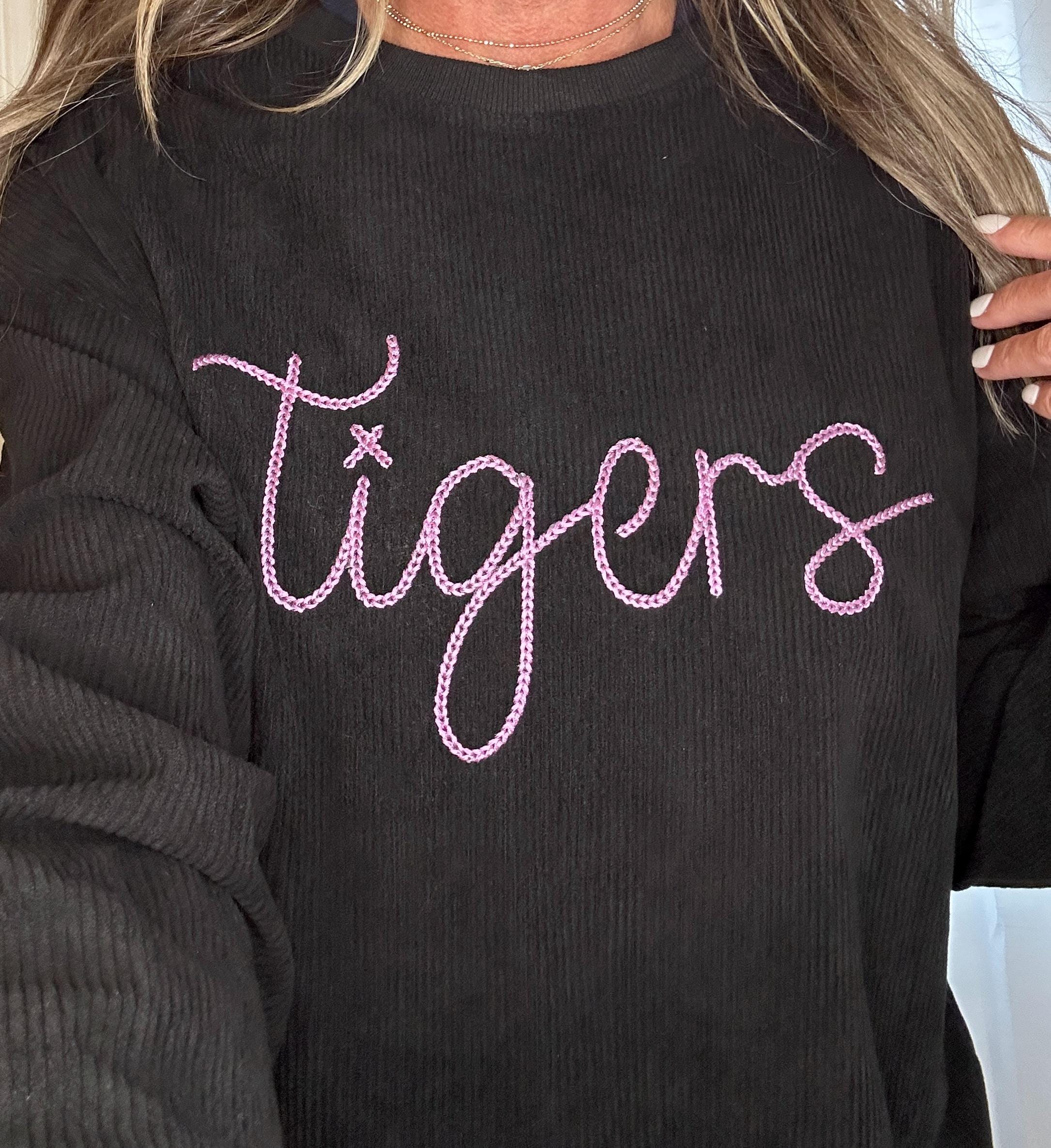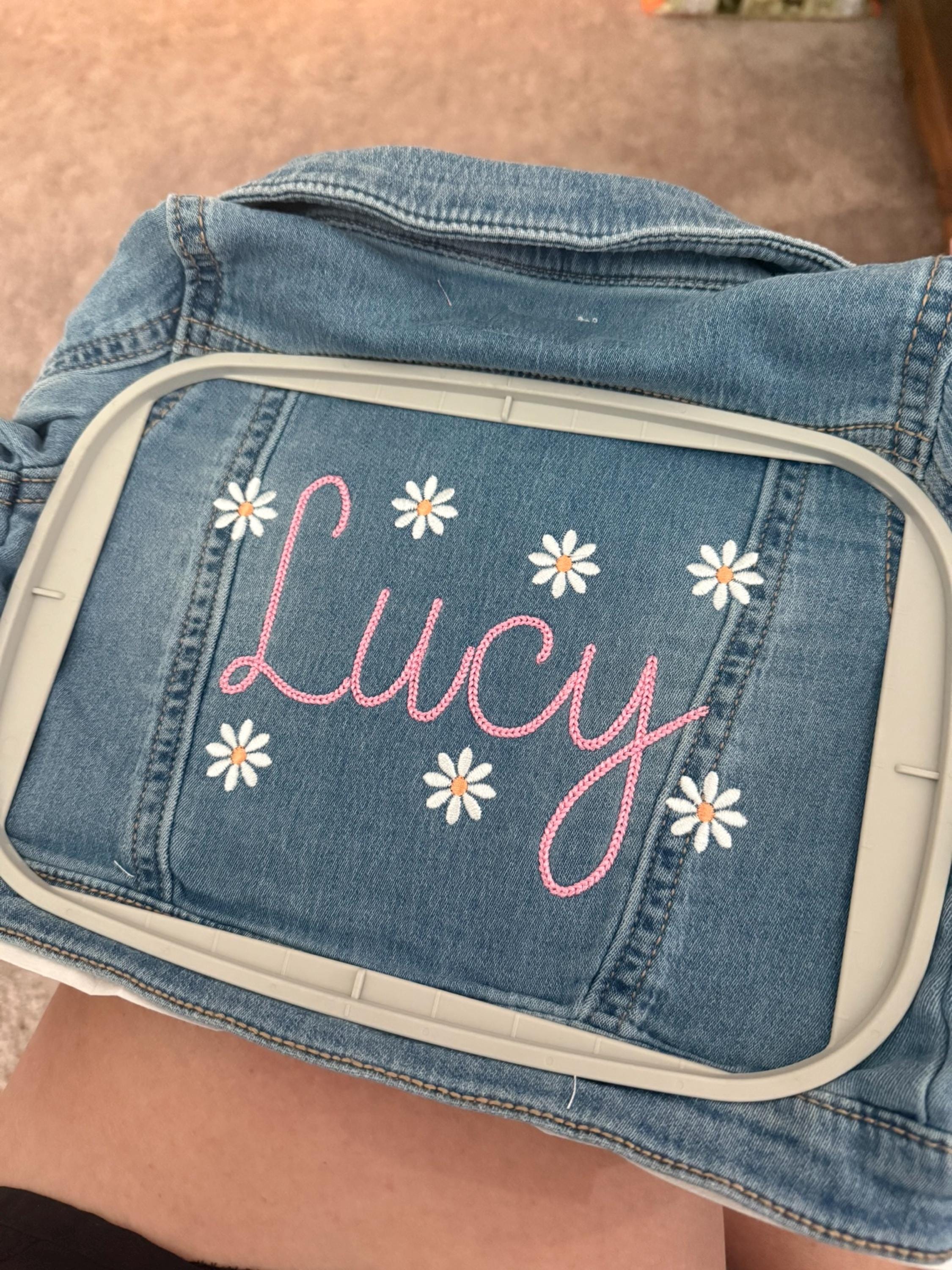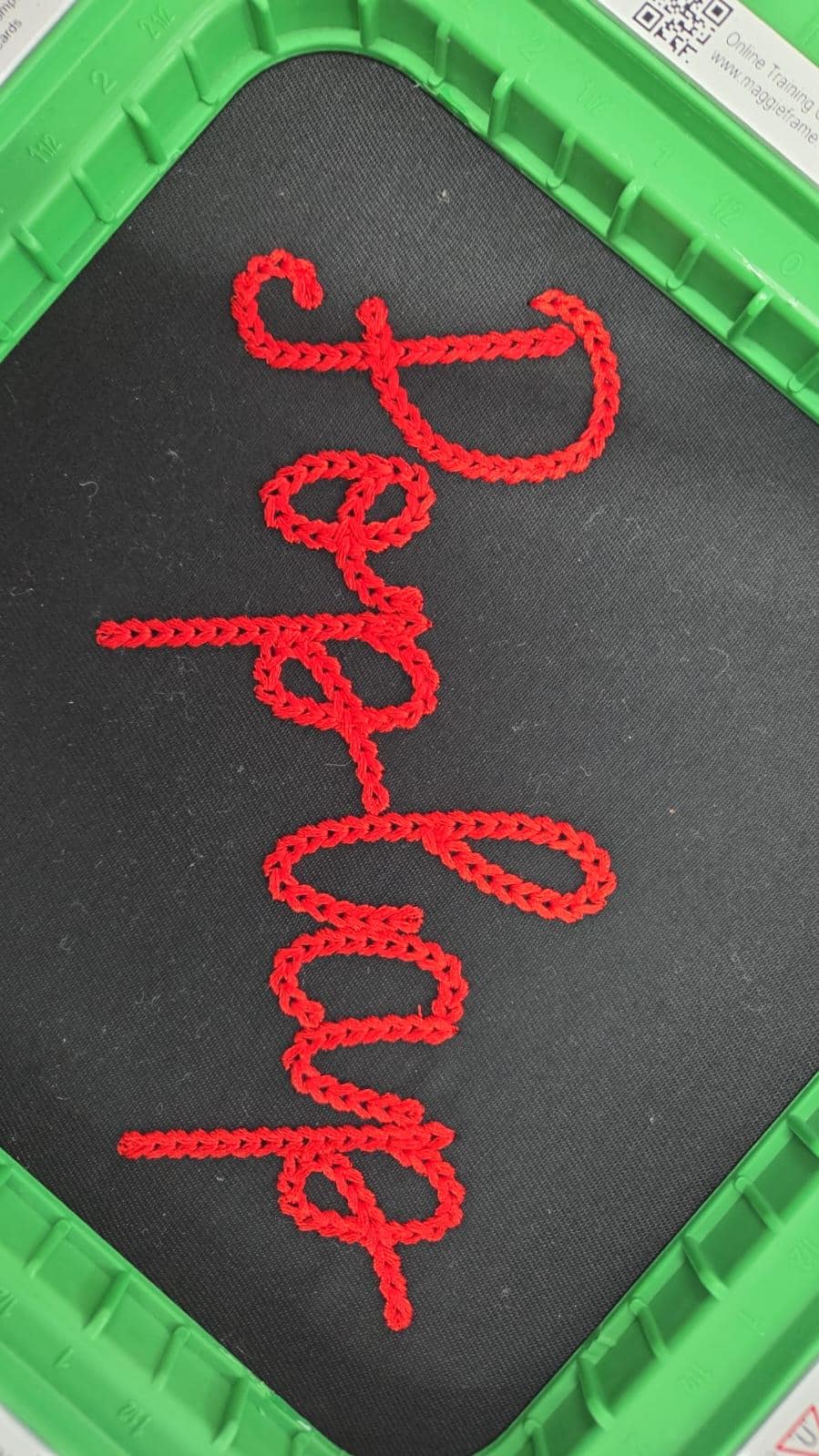
Bold Authentic Hand Chain stitch FONT machine embroidery designs in alphabet letters knit sweater handmade effect chain name, BX included
Entire alphabet uppercase and lowercase letters, numbers, and punctuation.
looks great stitched out on a shirt
Beautiful font which stitches out to well 🌈
sehr schön auch mir Farbverläufen zu sticken